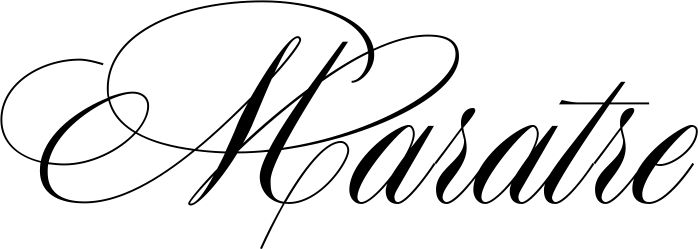
Maratre Font
Designed byClaudeP
Fashion magazines, decorative, headlines, and wedding invitations are projects that need a font to bring some class and delicacy to them. And in that case, we introduce Maratre to you which is a funeral font with a beautiful calligraphy styling.
In this awesome collection, you will find a set of uppercase and lowercase alphabets, numbers, and punctuation marks. But you should know that this font may be hard to understand so don’t use it for long contexts.